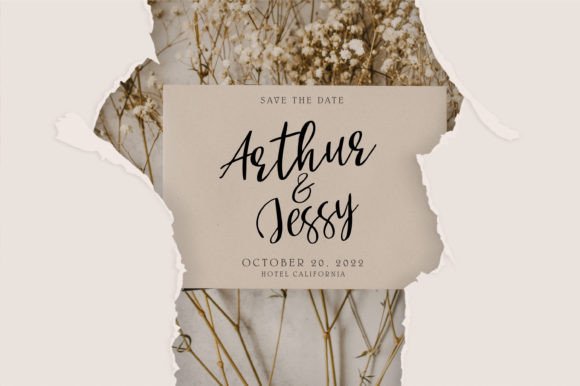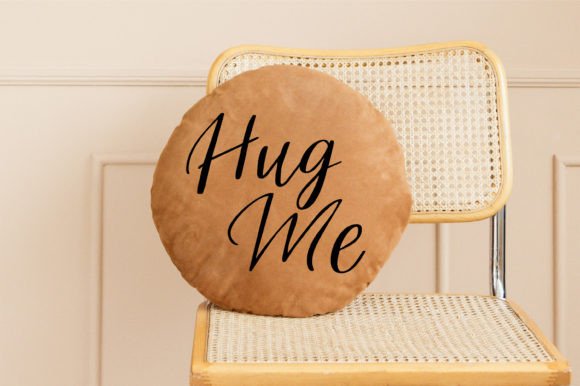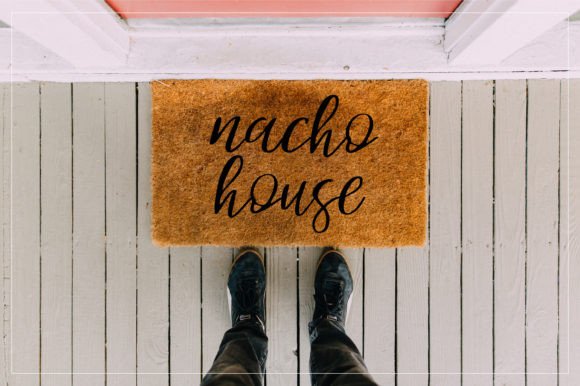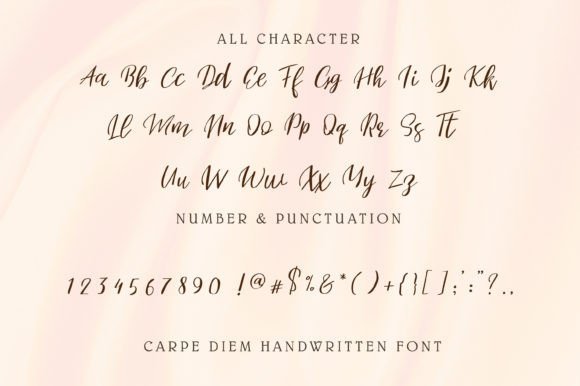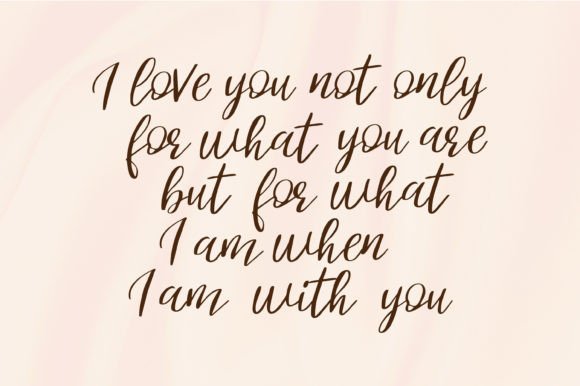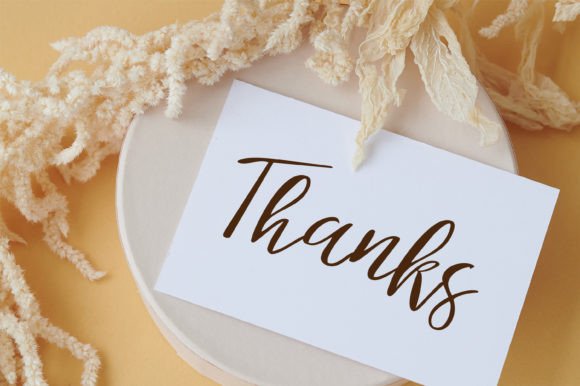
The Perfect Font for Designers: Carpe Diem Font
Enter the Carpe Diem Font, a chic modern script font that’s sure to elevate your designs to the next level. Whether you’re working on a logo, wedding invitation, or business card, this font is perfect for adding a touch of elegance and sophistication. And with its versatility, you can use it for a wide range of projects, from signboards to social media graphics.
Key Features of Carpe Diem Font
- Font Family: Carpe Diem is a unique, modern script font designed to evoke a sense of elegance and sophistication.
- Character Count: The font family includes over 700 characters, including uppercase and lowercase letters, punctuation, and special characters.
- Unique Characteristics: The font’s distinctive features include swashes, flourishes, and connecting strokes, which add a touch of personality to any design.
Carpe Diem Font Review
When I first laid eyes on the Carpe Diem Font, I knew I had to dive in and give it a try. Here’s what I think:
- ✨ Beautiful brush script feel that adds a touch of elegance to any design
- ✨ Great for use in invitations, logos, or other typography-heavy projects
- ✨ Includes a wide range of languages and characters, making it a great choice for multilingual designs
- ✨ The font comes in various weights, from light to bold, giving you flexibility in your design
- ⚠️ The font may be too ornate for some designs, overpowering the message or feeling too busy
- ⚠️ The bold weight can be difficult to read in smaller sizes, so be mindful of font size when using it
- ⚠️ Some users may find the font’s feel too cursive or script-like, which can be distracting in certain contexts
The Carpe Diem Font is a beautiful addition to any designer’s toolkit. While it may have some limitations, its elegant feel and versatility make it a great choice for a wide range of projects. Just be mindful of the font’s potential drawbacks and use it wisely. With a little finesse, this font can add a touch of sophistication to any design.
Carpe Diem Font is a beautiful, elegant script font that works well for:
- Quotes and inspirational graphics
- Editorial and design projects that require a touch of sophistication
Remember to pair Carpe Diem Font with a clean and simple design to let the font be the focal point.